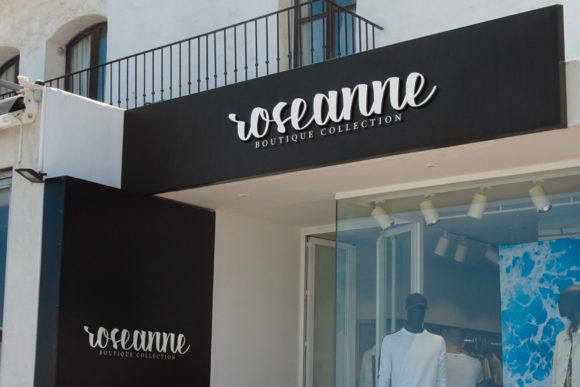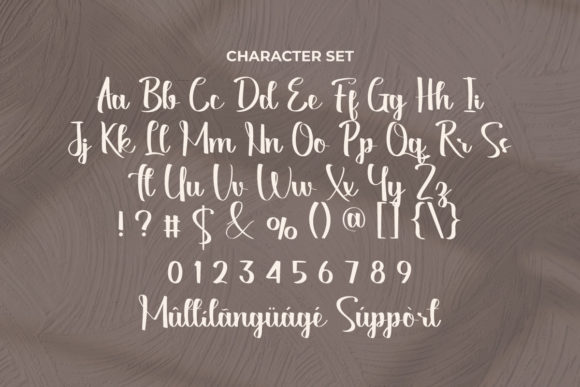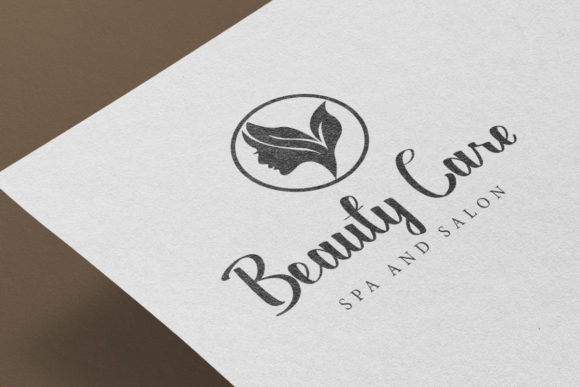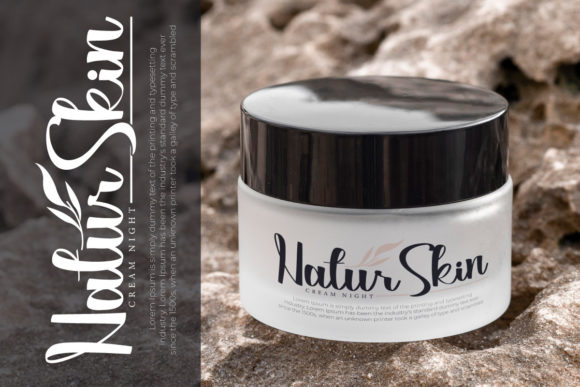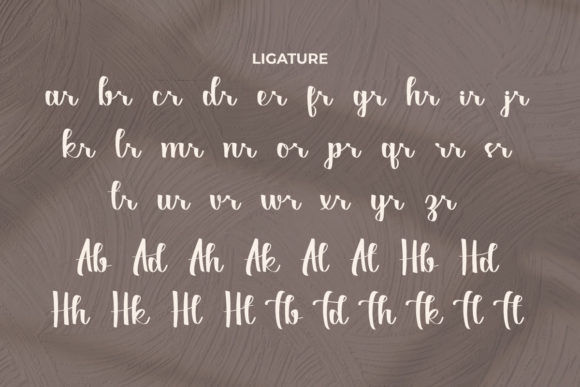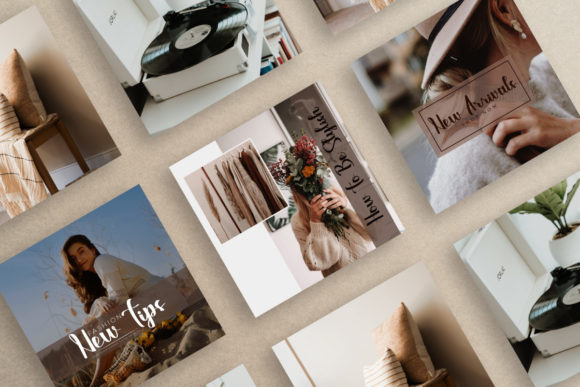
Discover the Timeless Charm of Anthonyela Font
Have you ever been inspired by a single word or phrase, and suddenly found yourself envisioning an entire design project around it? For designers, this moment of creative spark is what drives us to bring our ideas to life. And for those who appreciate the art of beautiful typography, the Anthonyela Font is about to become your new go-to companion.
Anthonyela Font is a stunning calligraphy script that exudes classic elegance and sophistication, making it the perfect choice for modern projects, from blog headings to wedding invitations. With its PUA encoding, accessing the intricate glyphs and swashes is a breeze, giving you endless possibilities to experiment and create unique designs. Whether you’re a seasoned pro or a budding designer, Anthonyela Font is an invaluable addition to your toolkit, elevating your work to new heights of visual appeal.
Anthonyela Font Key Features
- Font Family: Anthonyela is a script font designed to evoke elegance and sophistication.
- Size: Anthonyela Font comes in multiple weights, ranging from Thin (100) to Extra Bold (800), allowing designers to choose the perfect weight for their project.
- Resolution: Anthonyela Font is optimized for high-resolution displays and printing, ensuring crisp and clear typography at resolutions up to 300 DPI.
- Unique Characteristics: Anthonyela Font features a distinctive, flowing script style with intricate connections between letters, making it ideal for invitations, wedding stationery, and other formal designs.
- Language Support: Anthonyela Font supports a wide range of languages, including Latin, Cyrillic, and Greek, making it a versatile choice for global design projects.
Anthonyela Font Review
I recently had the chance to work with the Anthonyela font, and I must say it’s a unique and intriguing choice. ✨ One of the things that stood out to me was the font’s elegant and sophisticated feel. It’s perfect for creating a high-end or luxury brand aesthetic.
Here are some of the key features that I appreciate about the Anthonyela font:
- ✨ Beautifully crafted letterforms with subtle flair and personality
- ✨ Highly versatile and suitable for a wide range of applications, from logos to body text
- ✨ Easy to read and understand, even at smaller font sizes
- ⚠️ The font may not be suitable for very casual or playful brand identities
- ⚠️ Some users may find the font too formal or stuffy
- ⚠️ Limited language support, which may be a concern for global brands
Overall, I think the Anthonyela font is a great choice for designers who want to create a sophisticated and elegant brand aesthetic. While it may not be the best fit for every project, it’s definitely worth considering for the right client or application.
Tips for Getting the Most Out of Anthonyela Font
Anthonyela Font is ideal for creative and artistic projects, such as wedding invitations, branding materials, or editorial designs. To get the most out of this font, experiment with different font sizes, colors, and combinations to create visually appealing and unique designs.
Anthonyela Font is commonly used in:
- Branding materials, such as logos and business cards
- Editorial designs, like magazine covers and articles
- Artistic projects, such as posters and prints